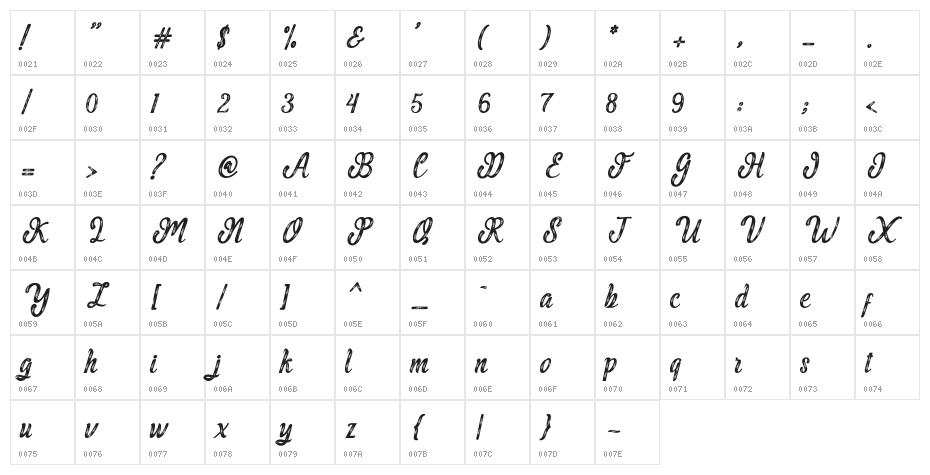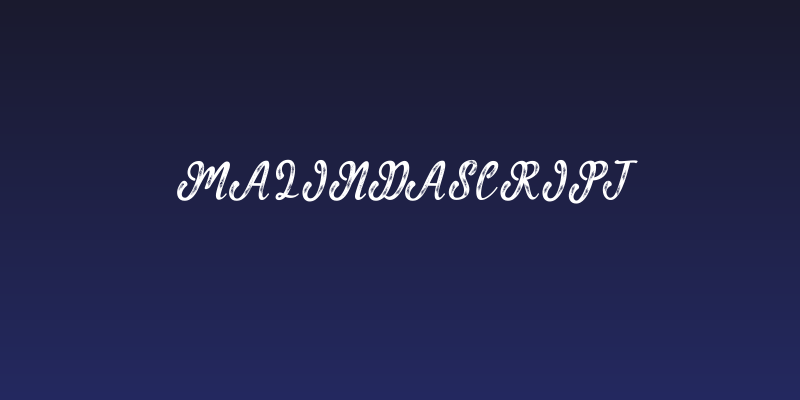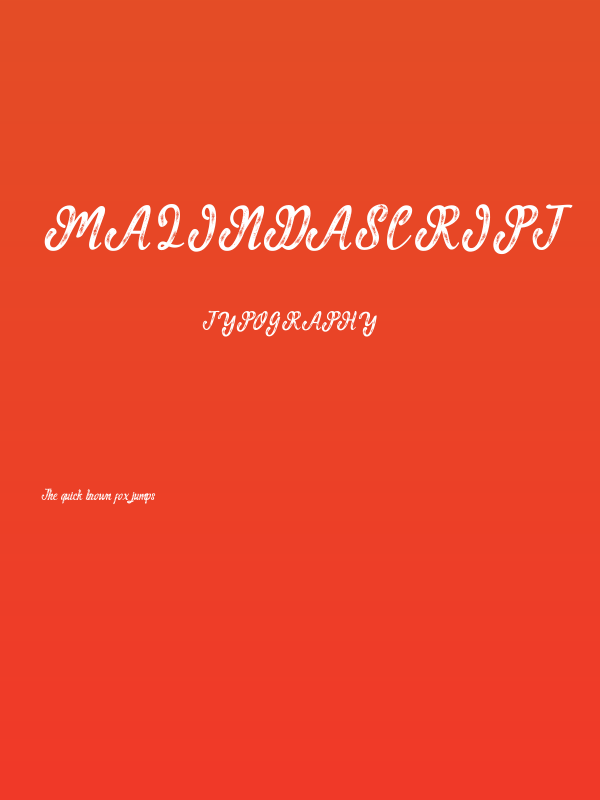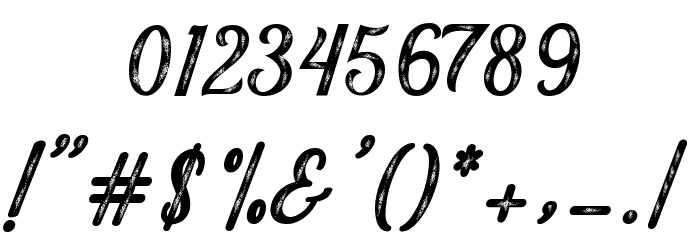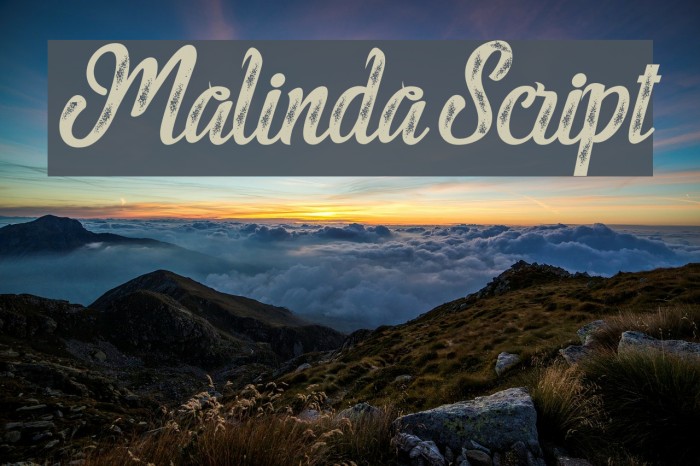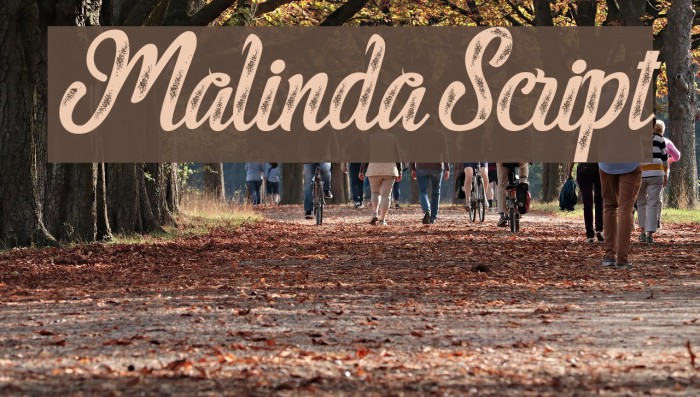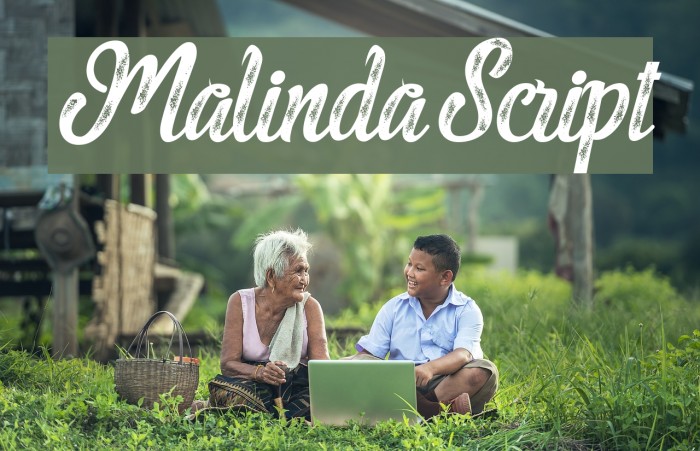
MalindaScript Font
| 用途 | Logos, Headlines, Invitations |
| おすすめプロジェクト | Ideal for wedding invitations, greeting cards, branding projects, and decorative posters. |
| 作者 | Fonts by Limitype |